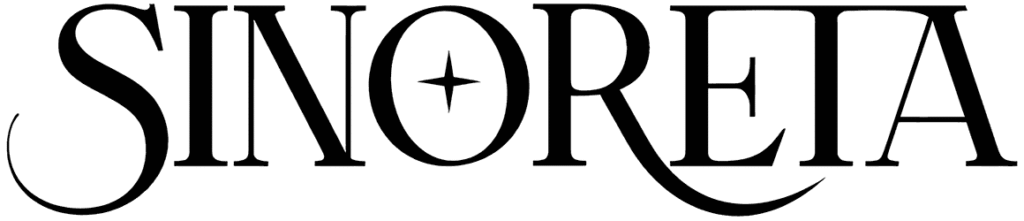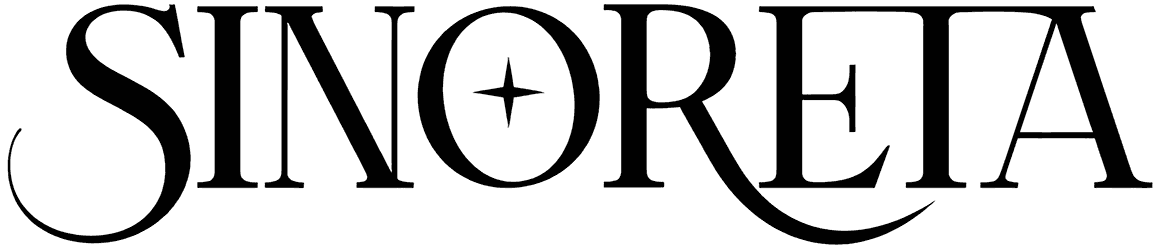
Sinoreta Font
Throw a classic and romantic vibe into your coming design to leave a lasting impression on your viewers. The Sinoreta font with its stylish visual can do it and bold your project. There is no support for numerals, but this luxury font will remain a nice option for varied projects, such as a business card for a manager or a fashion event flyer.